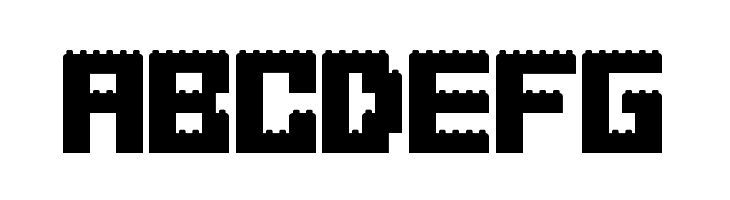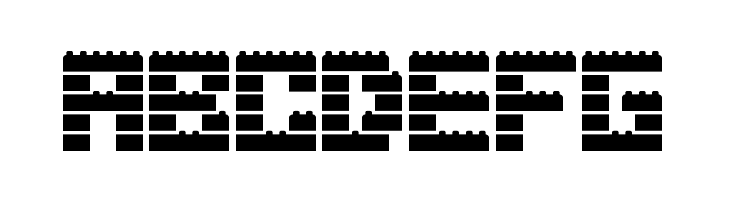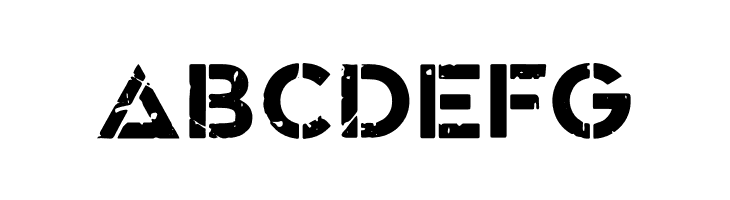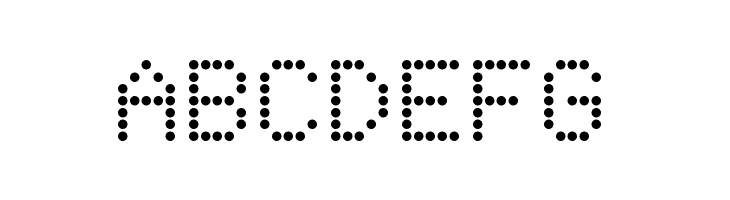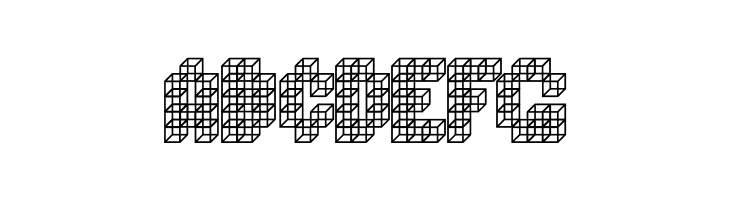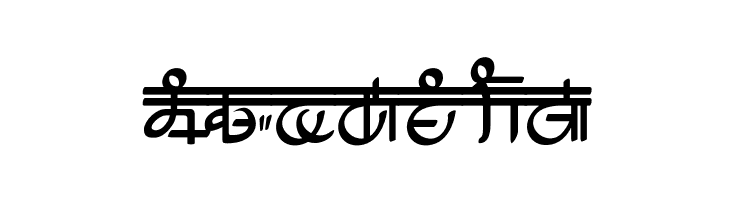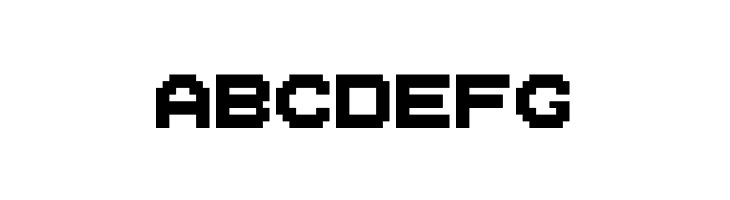
A dot matrix style font with a modern, digital aesthetic.
A bold, distressed font with a rugged, chaotic appearance.
A playful, blocky font inspired by interlocking bricks, perfect for creative projects.
A decorative and intricate font with mystical, calligraphic elements.
A bold, pixelated font with a retro, video game-inspired design.
A bold, geometric font with a 3D cube design, perfect for creative projects.